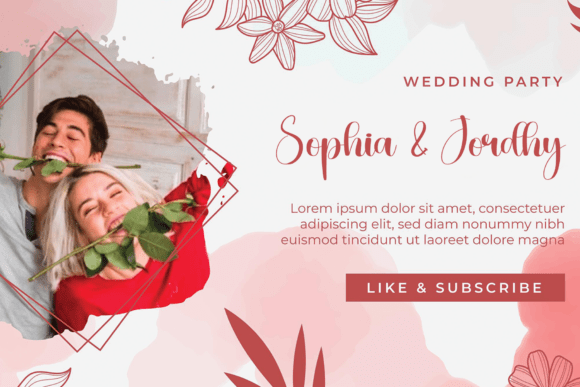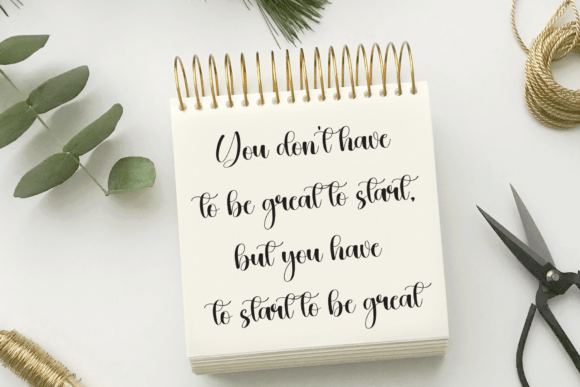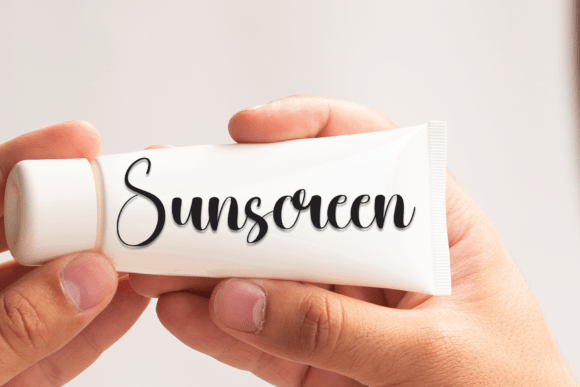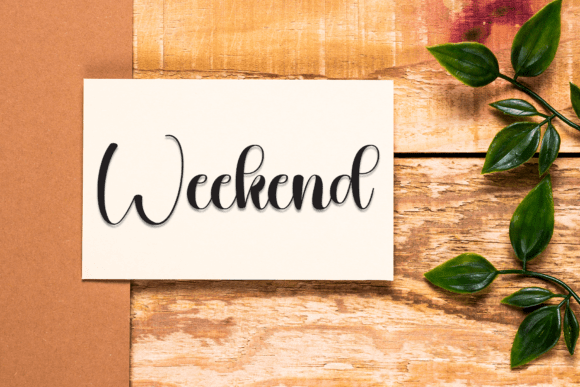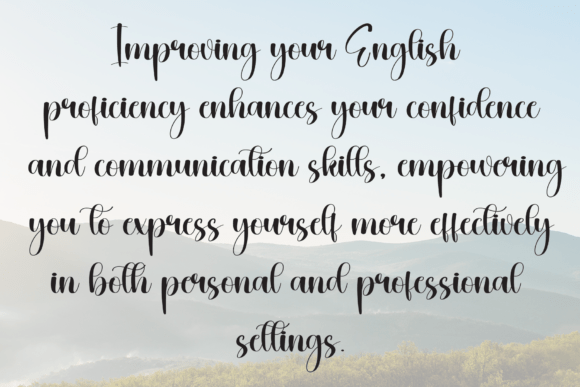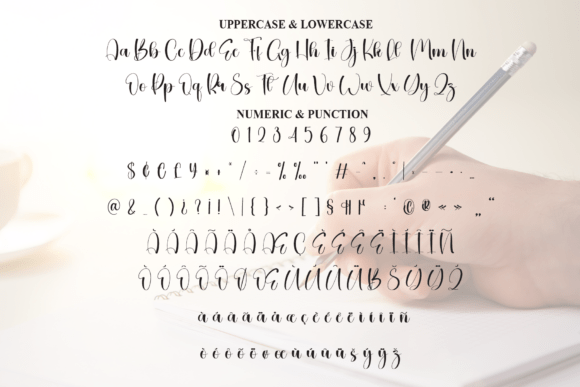
Introducing Autography Font: Elevate Your Designs with Elegance and Modern Flair
Are you looking for a font that can add a touch of sophistication and warmth to your designs? Look no further than Autography, a stylish handwritten script font that combines elegance with a modern flair. In this article, we’ll dive into the world of Autography and explore its features, uses, and benefits for designers and crafters.
What is Autography Font?
Autography is a beautiful handwritten script font that is designed to bring a personal and refined touch to any project. Its flowing strokes and organic curves create a sense of warmth and sophistication, making it ideal for a wide range of applications, from branding and invitations to social media and more.
With Autography, you can add a touch of elegance and modernity to your designs, setting them apart from the rest. Its unique and stylish lettering makes it perfect for designers and crafters who want to create something truly special and eye-catching.
Key Features of Autography Font
So, what makes Autography font so special? Here are some of its key features:
- Handwritten script font: Autography is a handwritten script font that mimics the natural flow and movement of handwriting, giving it a personal and organic feel.
- Elegant and modern: Autography combines elegance with a modern flair, making it perfect for designers and crafters who want to create something sophisticated and contemporary.
- Flowing strokes and organic curves: The font features flowing strokes and organic curves that create a sense of warmth and sophistication.
- Versatile: Autography is versatile and can be used for a wide range of applications, from branding and invitations to social media and more.
Uses of Autography Font
Autography font is ideal for a wide range of applications, including:
- Branding: Use Autography to create a unique and memorable brand identity that sets you apart from the competition.
- Invitations: Add a touch of elegance and sophistication to your invitations with Autography.
- Social media: Use Autography to create eye-catching social media graphics and posts that showcase your personality and style.
- Stationery: Create beautiful stationery, such as letterheads, business cards, and more, with Autography.
Benefits of Using Autography Font
So, why should you use Autography font in your designs? Here are some of its benefits:
- Adds a personal touch: Autography adds a personal and refined touch to any project, making it perfect for designers and crafters who want to create something special.
- Effortless charm: The font has an effortless charm that makes it easy to use and work with.
- Sophistication and elegance: Autography brings a sense of sophistication and elegance to any project, making it perfect for high-end designs.
- Versatile: The font is versatile and can be used for a wide range of applications, making it a great addition to any designer’s toolkit.
Tips for Using Autography Font
Here are some tips for using Autography font in your designs:
- Use it sparingly: Use Autography sparingly to create a sense of elegance and sophistication.
- Pair it with other fonts: Pair Autography with other fonts to create a unique and interesting contrast.
- Pay attention to spacing: Pay attention to spacing and kerning to ensure that your text looks beautiful and elegant.
In conclusion, Autography font is a beautiful and stylish handwritten script font that combines elegance with a modern flair. Its flowing strokes and organic curves bring warmth and sophistication to any project, making it ideal for designers and crafters who want to create something special. With its versatility, elegance, and effortless charm, Autography is a great addition to any designer’s toolkit.